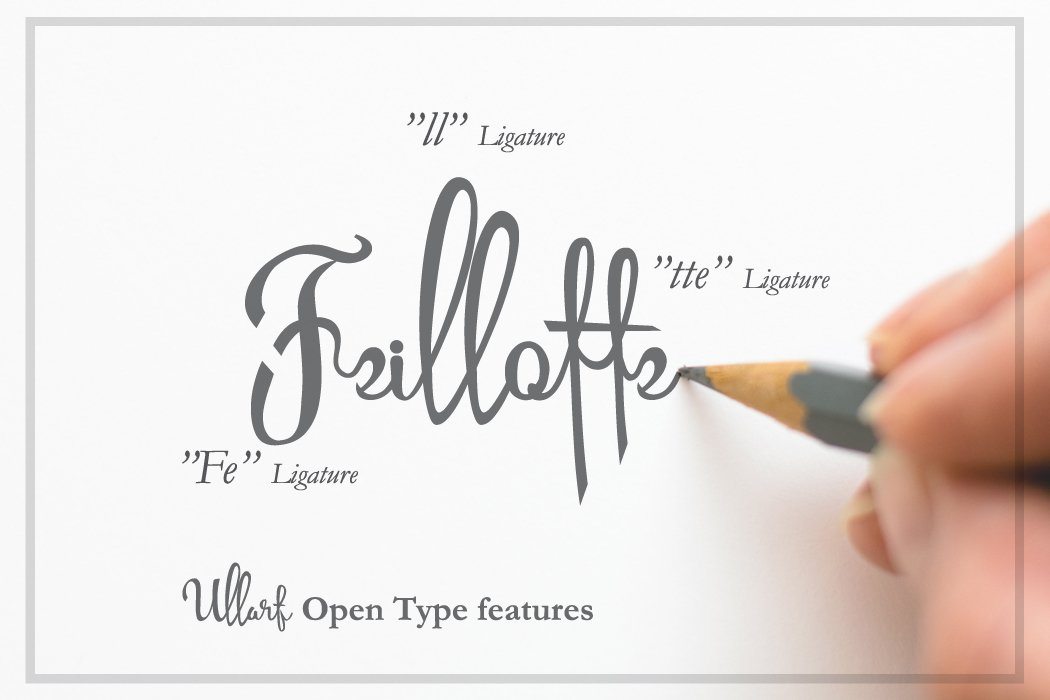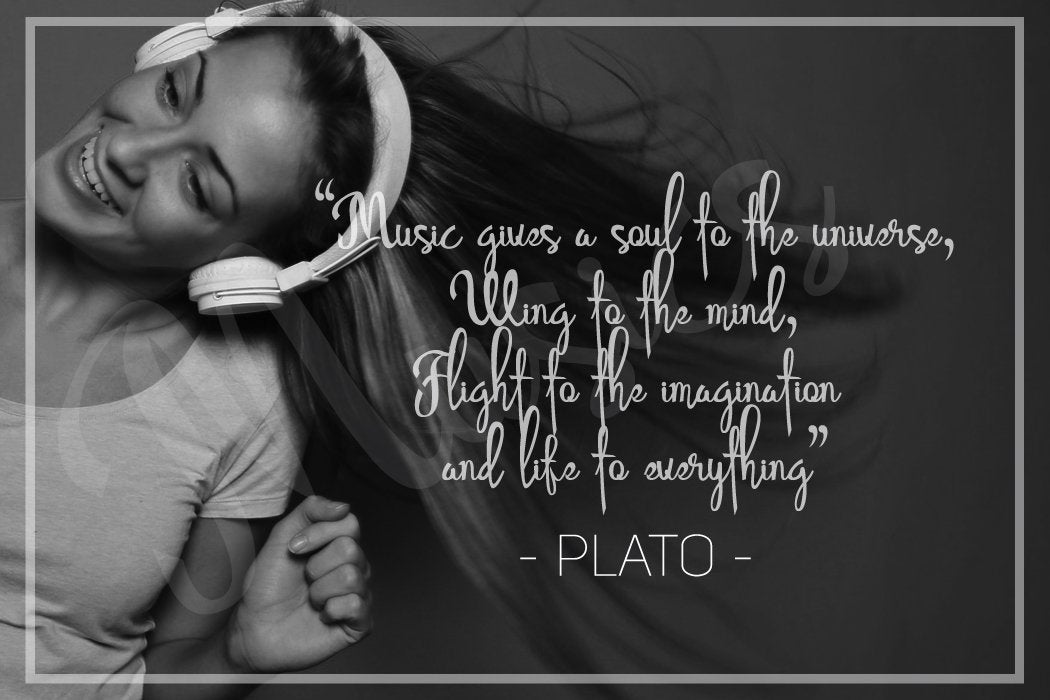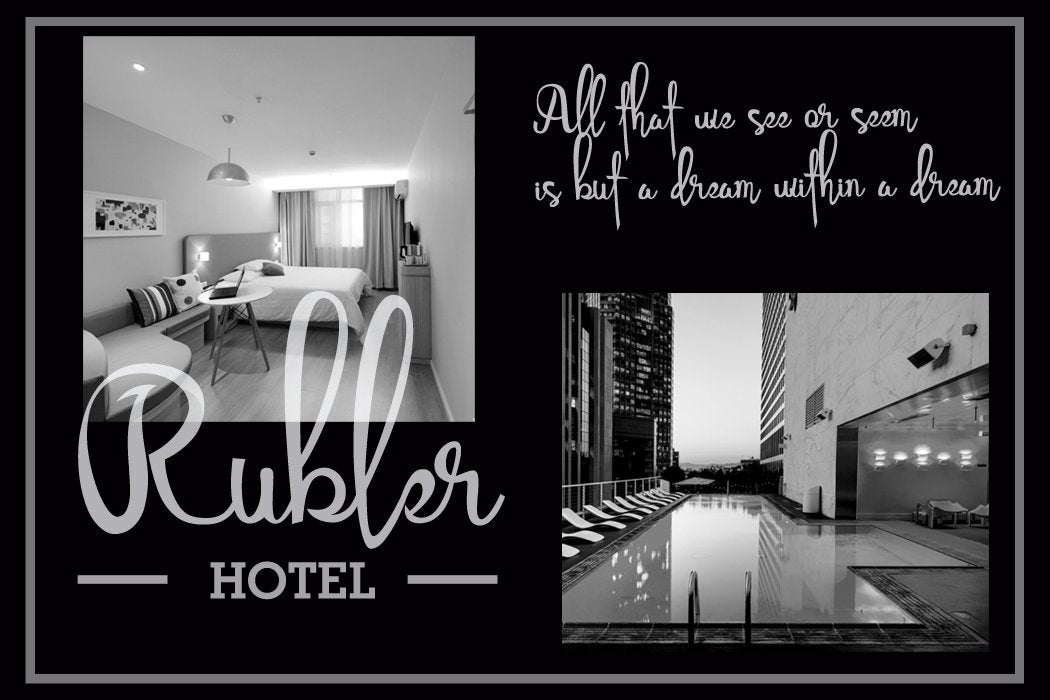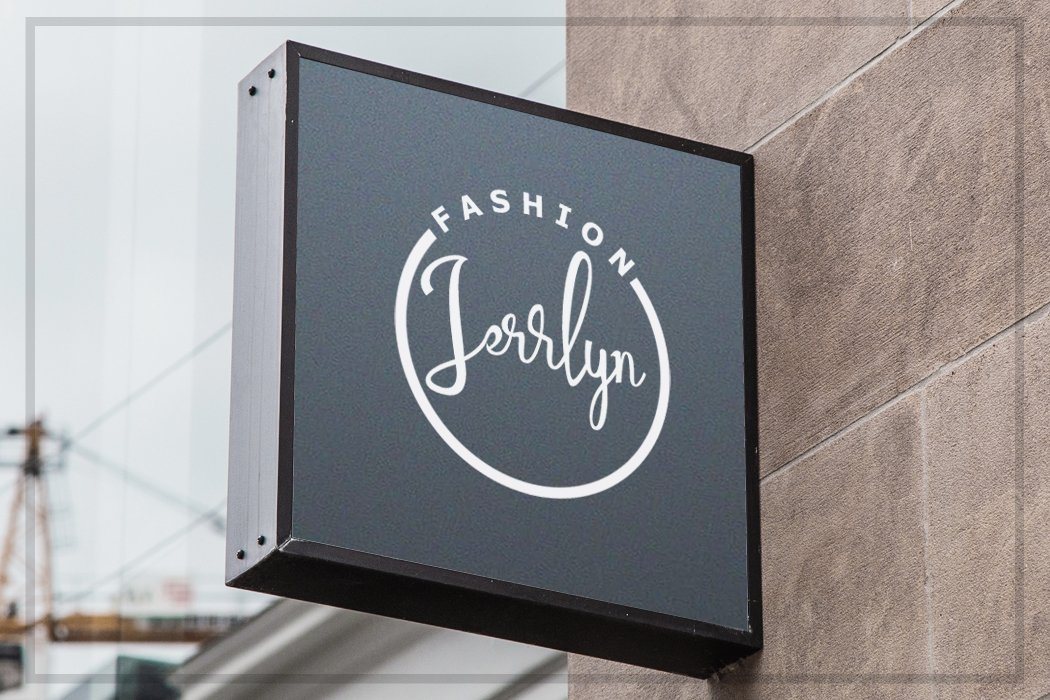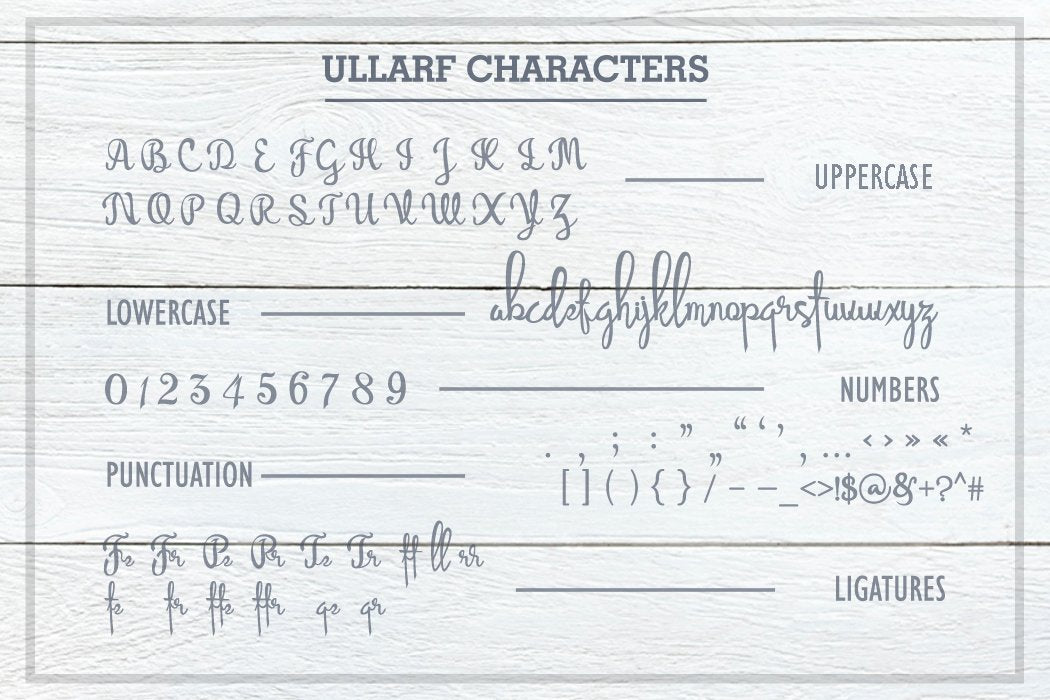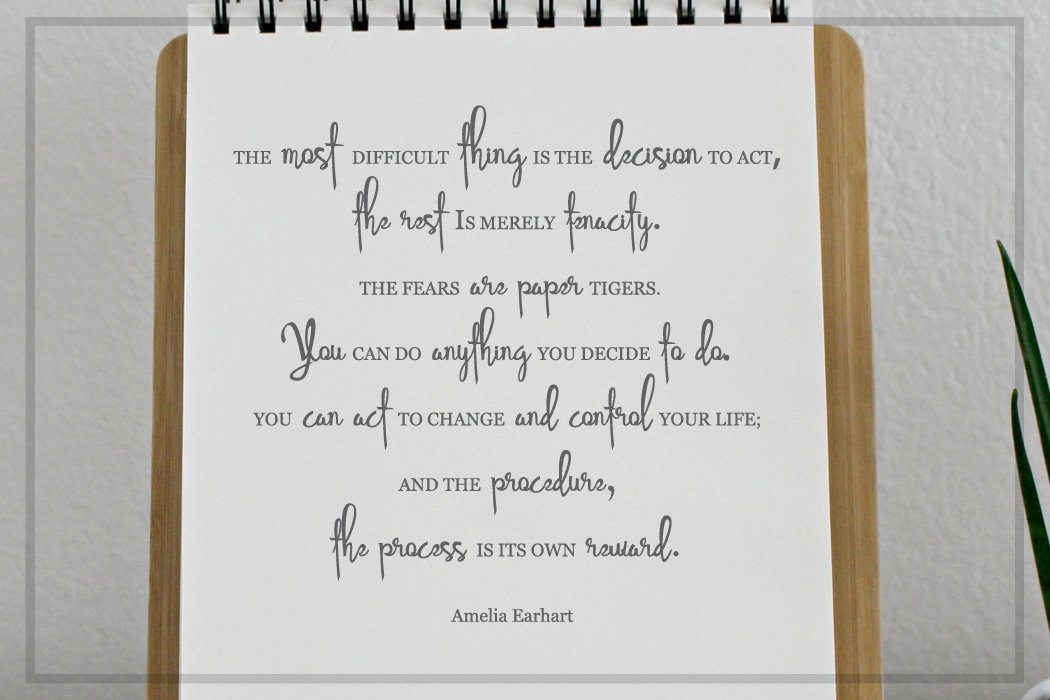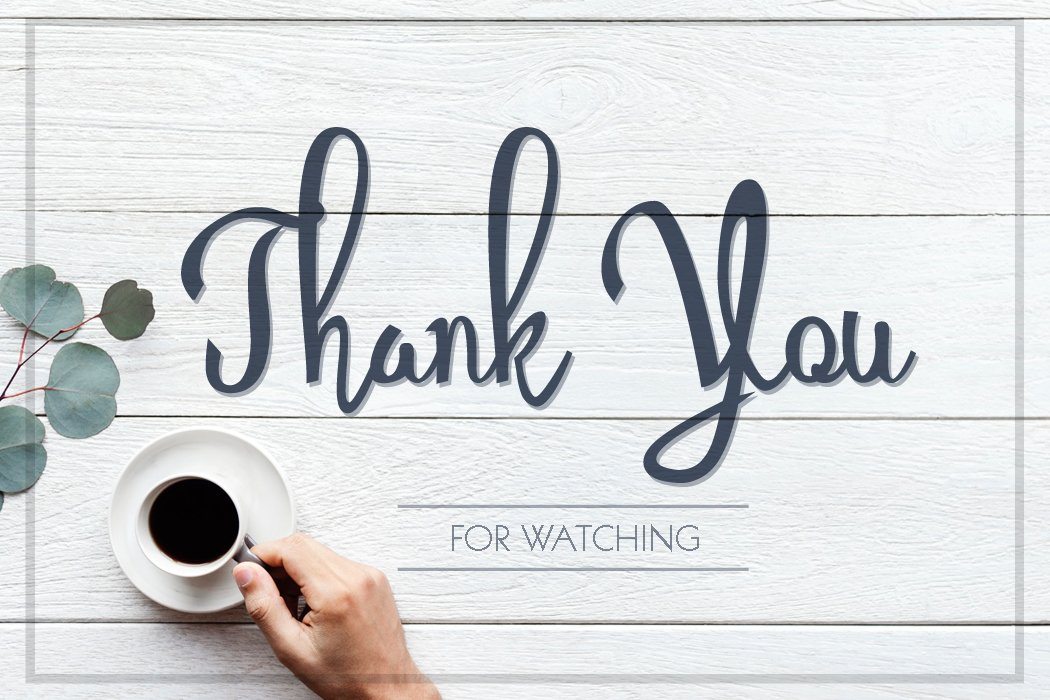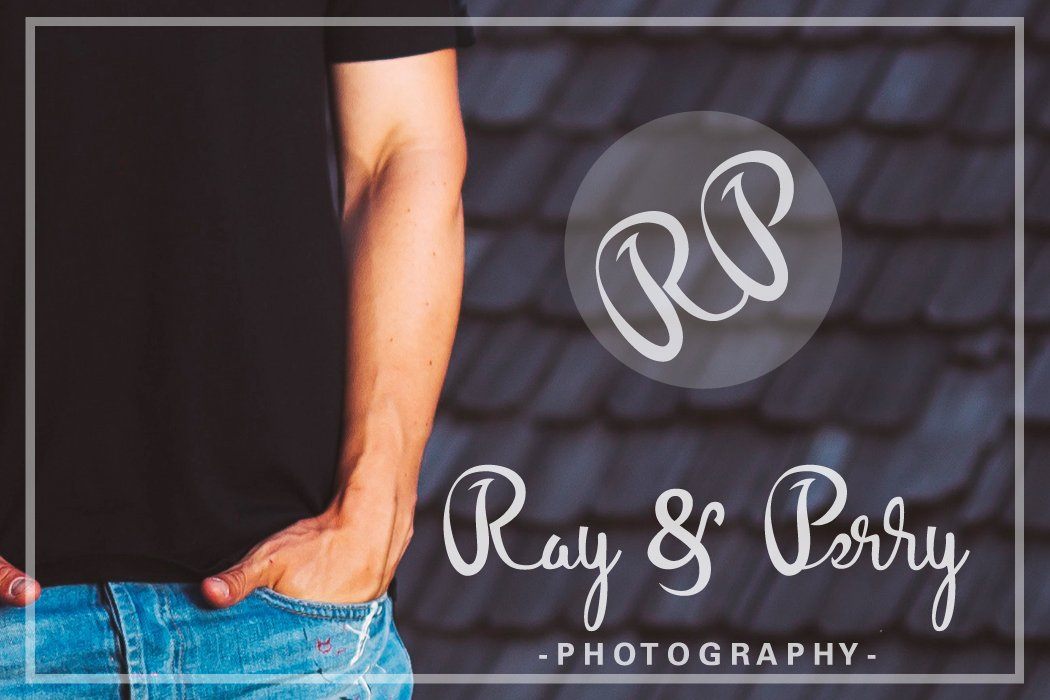
Ullarf font
Ullarf font Ullarf is a lovely script font that is perfect for branding, headers, product packaging, wedding invites, card and many other way. Ullarf’s Features : – Available in OTF and TTF files – Uppercase A-Z – Lowercase a-z – Numbers 0-9 – Punctuation – Custom Ligatures – Alternates – Multilingual support – Support for Windows, Mac and Linux OS If you have any questions regarding this product kindly leave your message through the contact form, comment field or contact us at  Enjoy!!! Thank you..